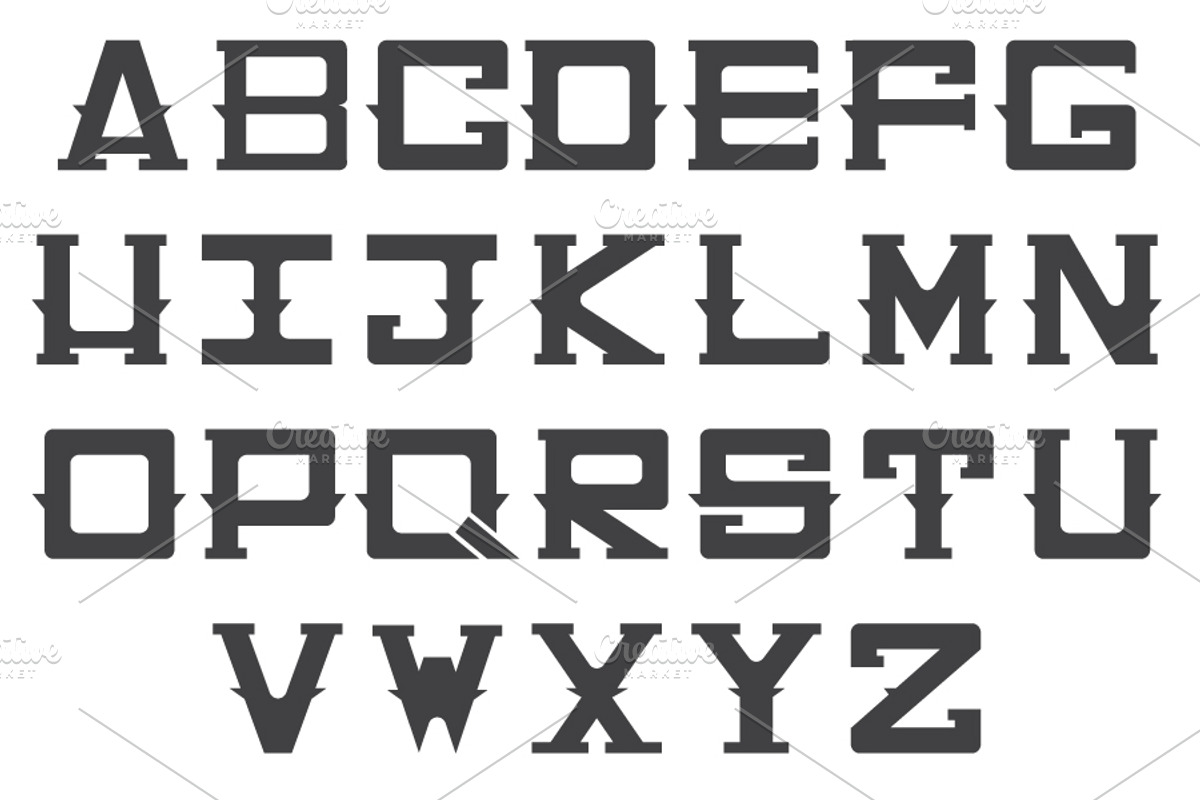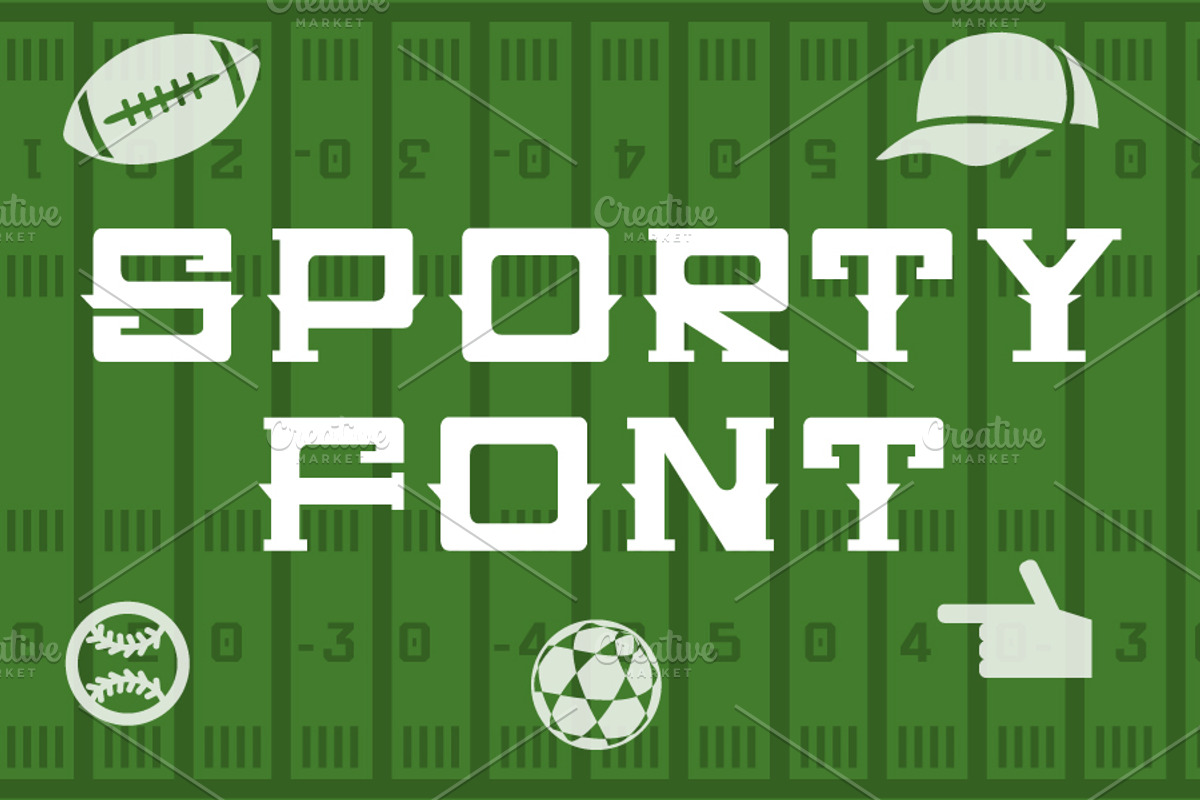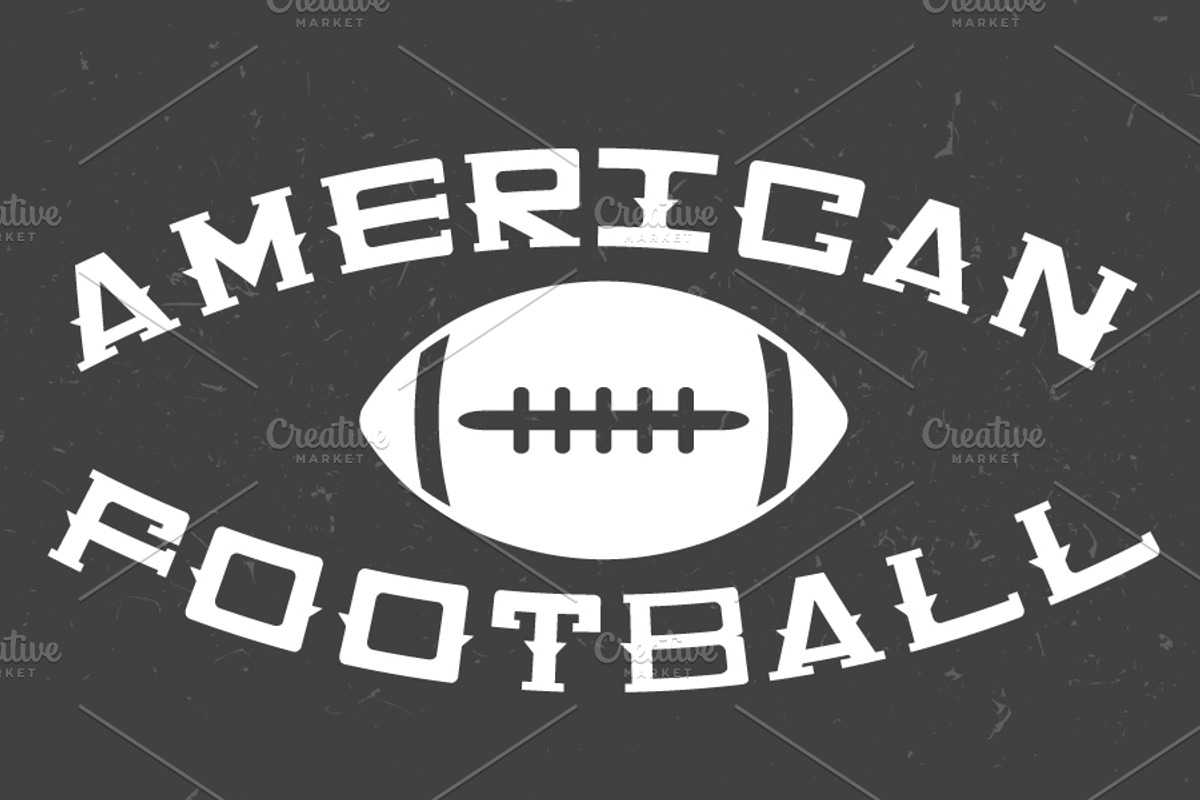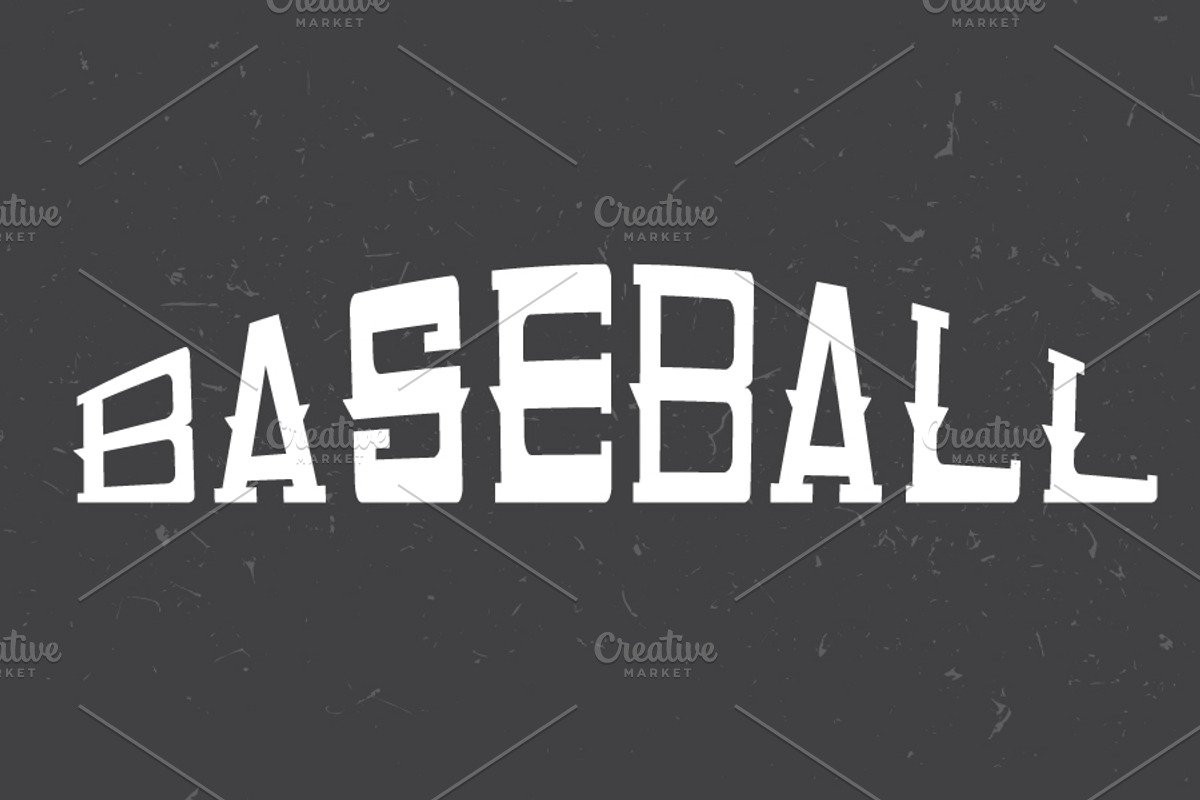
Sporty font
Sporty font by UVAconcept is a font selected for branding, posters, packaging, typography.
Why Sporty font is worth a look
Sporty font by UVAconcept fits naturally into Branding, posters, packaging, typography.